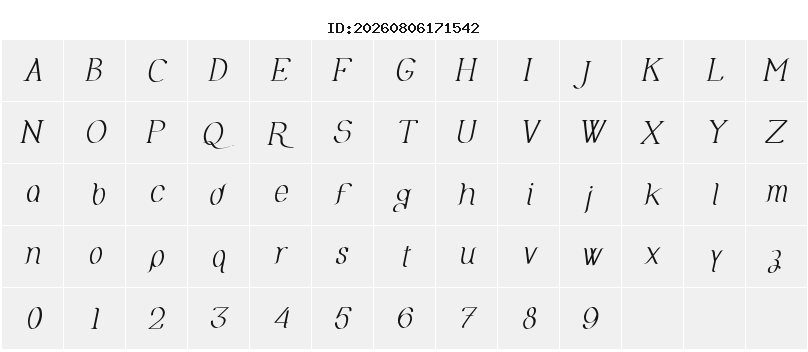
• Font Name: Olimpia
About Olimpia.ttf
Olimpia.ttf is a modern, elegant sans-serif font designed for ultimate readability and visual harmony. Perfect for branding, headlines, web design, and print materials.